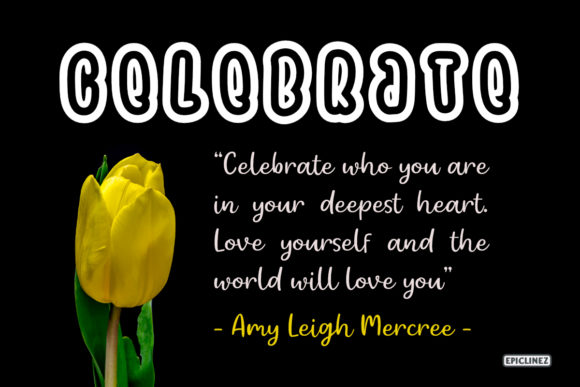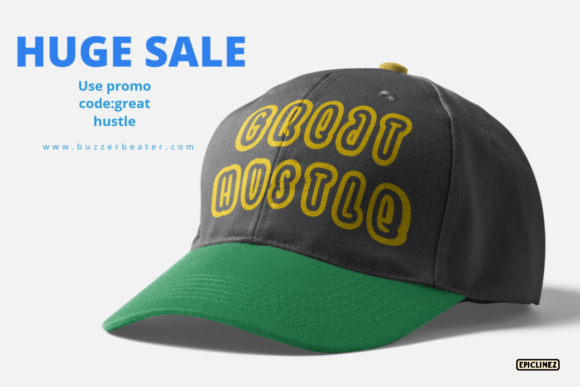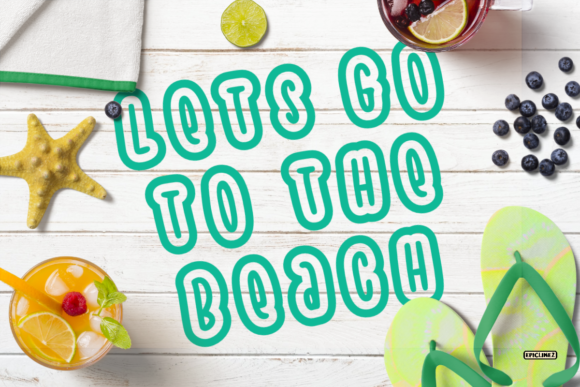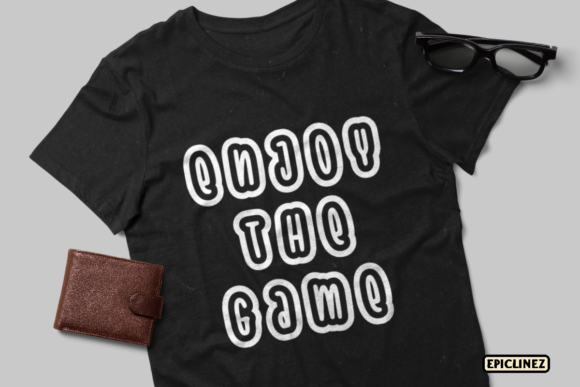
Introduction to Buzzer Beater Font
Buzzer Beater is a playful display typeface.
Its funky style will look truly outstanding in a wide range of contexts Use it to add a touch of quirk to any creative idea.